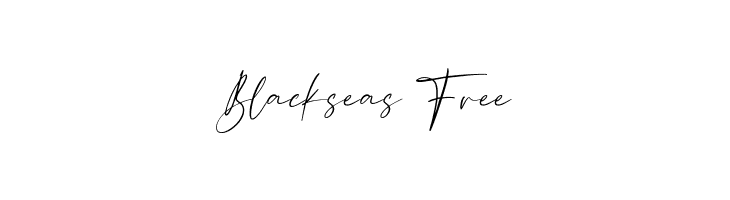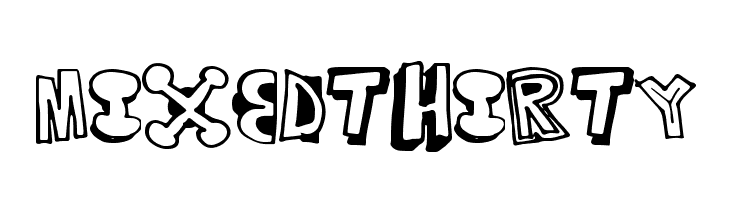
An elegant, flowing script font with thin, delicate strokes and a natural handwriting style.
A bold, playful font with a 3D comic book style.
A bold, playful 3D font with a cartoonish, decorative style.